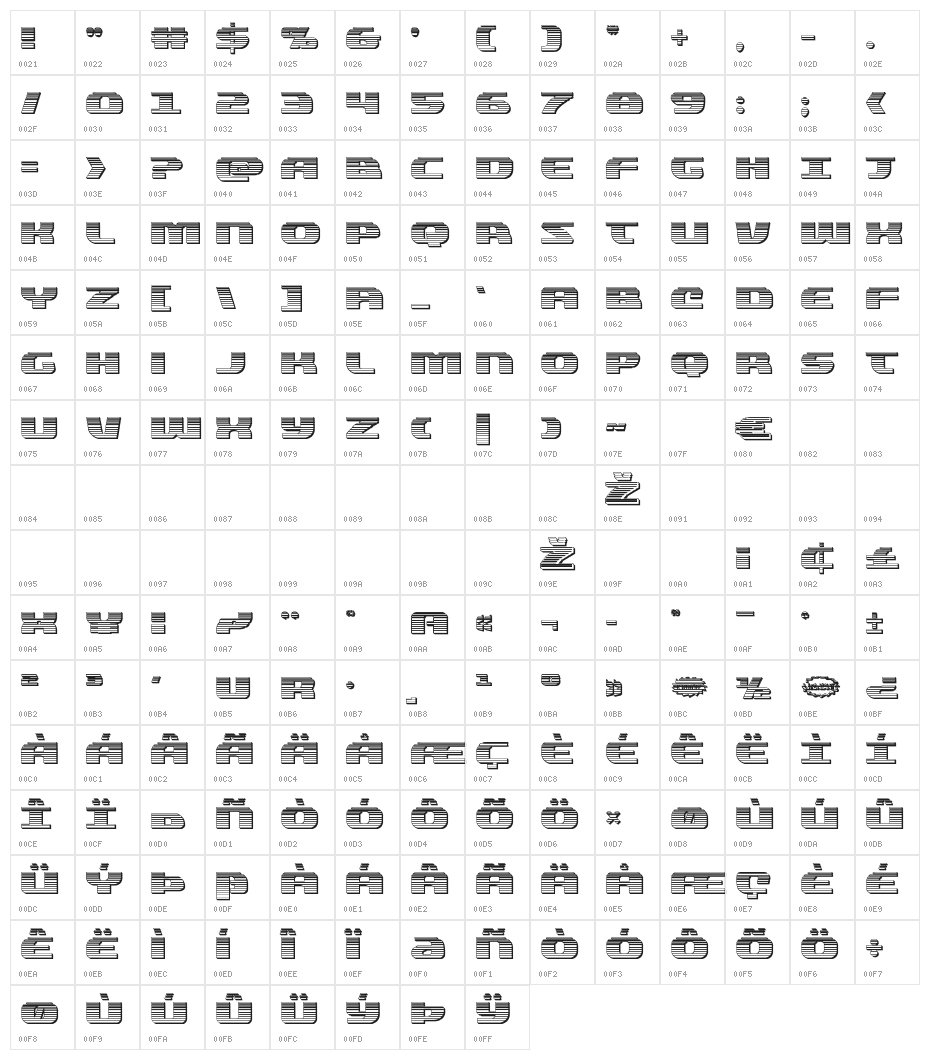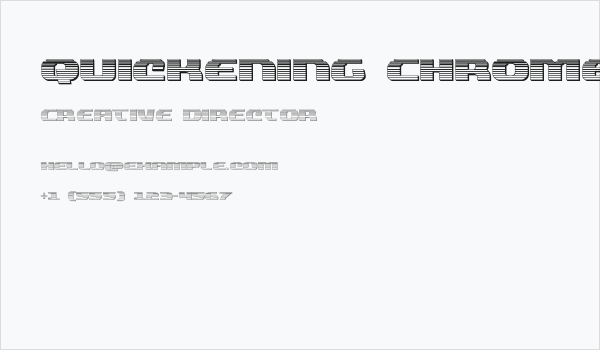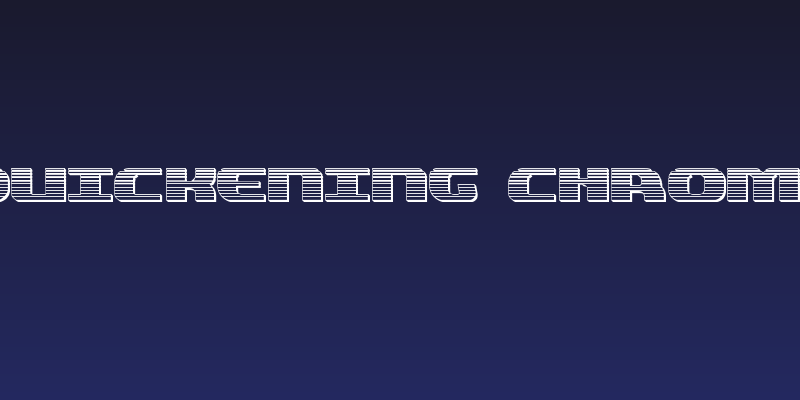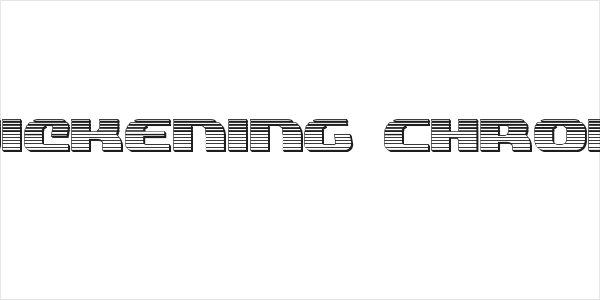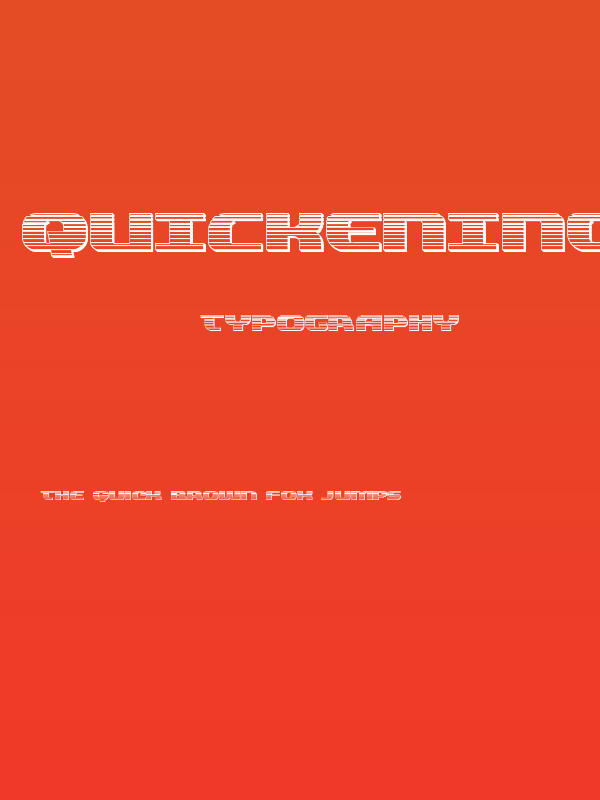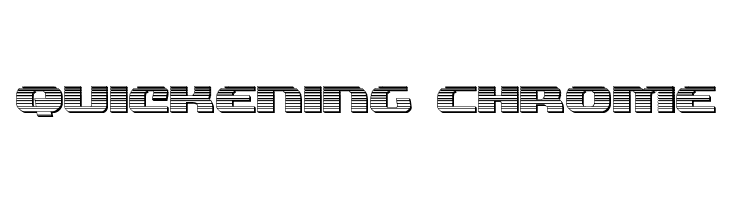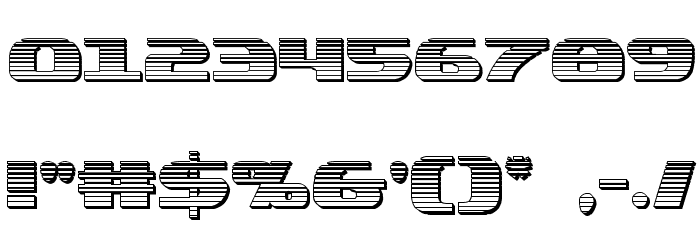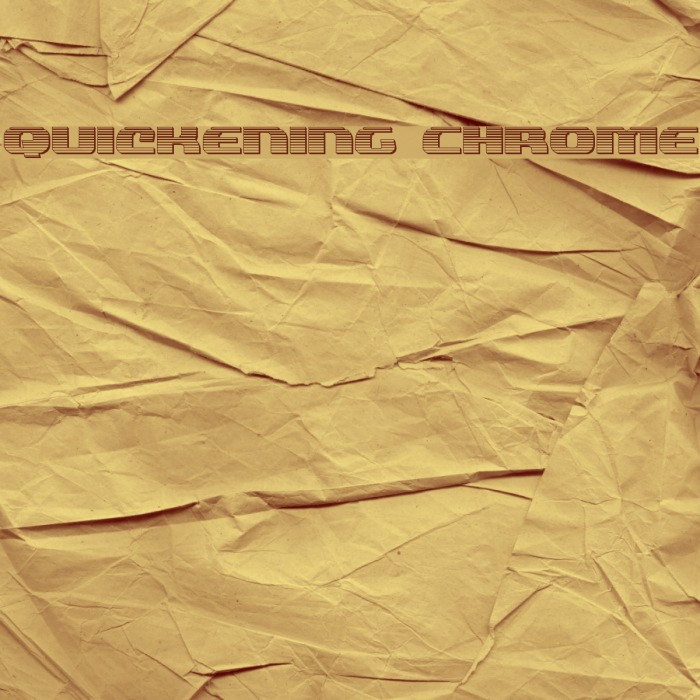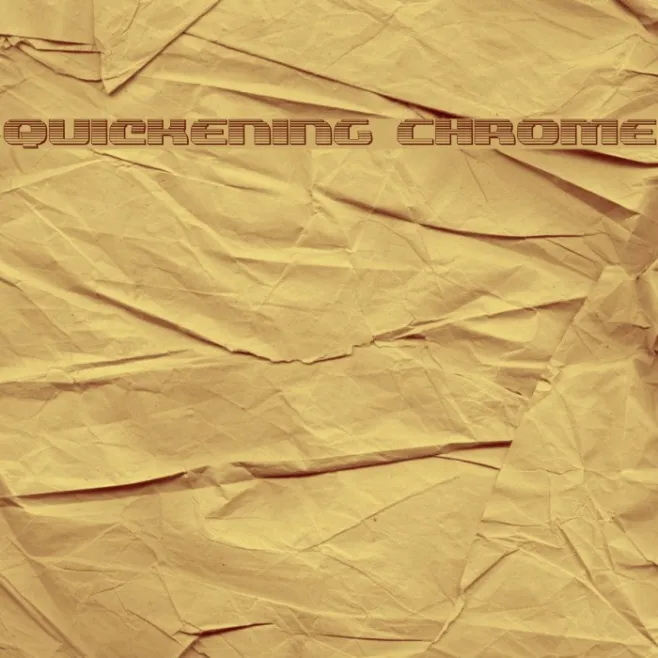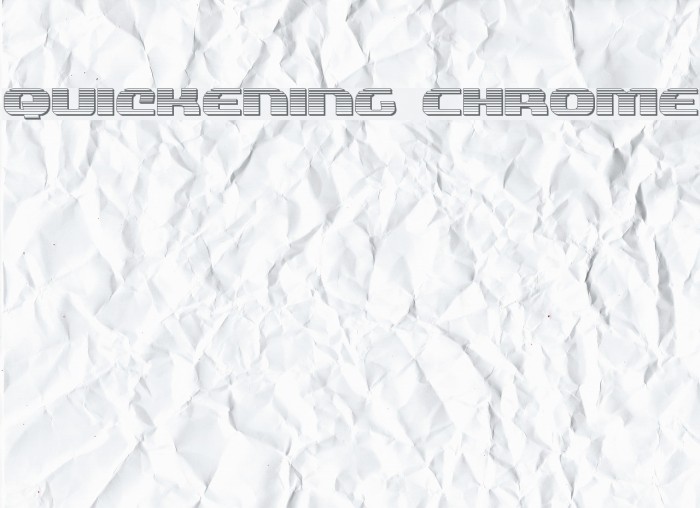
Quickening Chrome Font
Quickening Chrome Description
This font features a bold, futuristic design with a distinct striped pattern running horizontally across each character. The geometric shapes and clean lines give it a modern and industrial feel, making it stand out in any design. The uppercase and lowercase letters maintain a consistent style, with the stripes adding a sense of movement and energy. The numerals and special characters are equally bold, ensuring uniformity across all text elements. This font is ideal for projects that require a strong visual impact and a contemporary aesthetic.
| Proposed Projects | Ideal for sci-fi themed designs, modern branding, technology logos, and dynamic posters. |